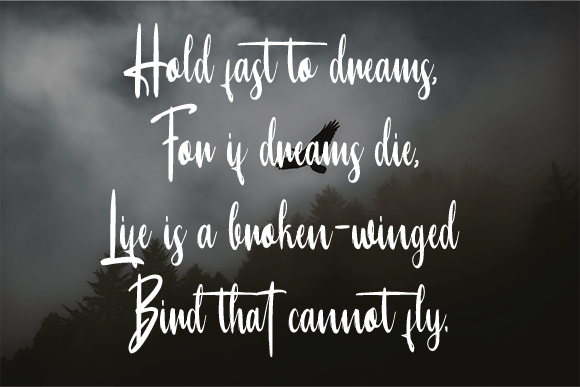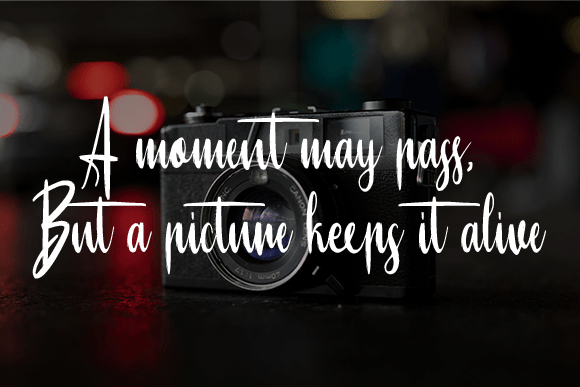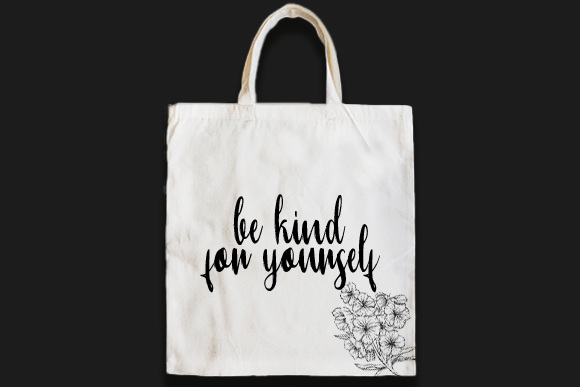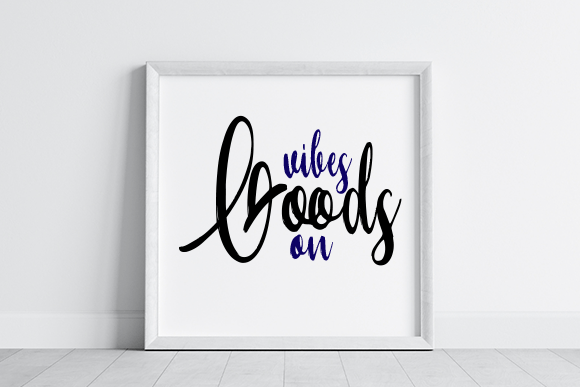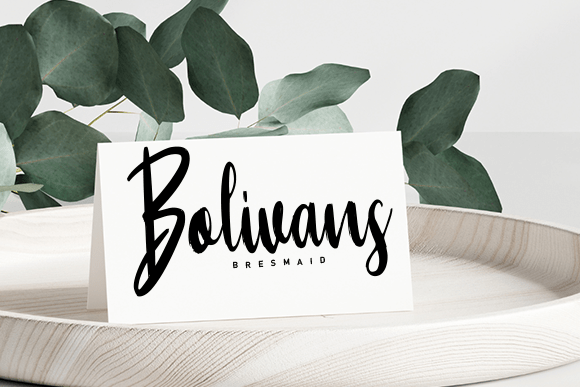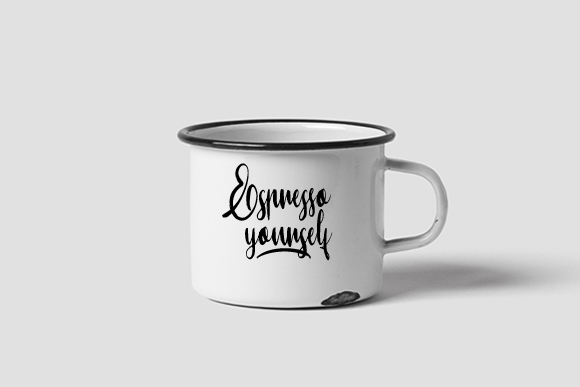
A New Dimension in Design: Unveiling the Bethany Font
Have you ever stared at a blank canvas, waiting for the perfect font to spark your creativity? You know that moment when everything falls into place, and your design takes shape? For designers, this moment is what drives us to keep pushing the boundaries of what’s possible. And that’s exactly what the Bethany Font is designed to do – to help you unlock your full creative potential.
The Bethany Font is a beautiful brush script font that combines style and versatility to create an unforgettable visual experience. Its refined charm makes it perfect for magazine layouts, T-shirt designs, and banners that demand attention. With its intuitive user experience, the Bethany Font is a valuable asset for designers who want to elevate their promotional content with a touch of sophistication.
Bethany Font Key Features
- Unique Characteristics: The font features a unique, hand-drawn design with subtle imperfections, giving it a personal and human touch. The letterforms are carefully crafted to provide excellent readability and legibility.
Bethany Font Review
Overall, I think Bethany Font is a nice addition to any designer’s toolkit. Here are some things that stand out to me:
- ✨ Unique and elegant design: Bethany Font has a distinctive feel to it, with beautiful curves and a classic look.
- ✨ Excellent legibility: The font is easy to read, even at smaller sizes, making it perfect for body text or smaller headings.
- ✨ Good for formal and informal designs: Bethany Font works well for both formal and informal designs, from wedding invitations to blog posts.
However, there are some limitations to keep in mind:
- ⚠️ Limited character set: Bethany Font only comes with a limited set of characters, which might make it harder to use for languages that require a lot of special characters.
- ⚠️ Not ideal for bold or italic text: While the font looks great in regular weight, the bold and italic versions can look a bit awkward.
Overall, I think Bethany Font is a solid choice for designers who want a unique and elegant font. While it may not be perfect, it’s definitely worth considering for your next project.
Tips for Getting the Most Out of the Bethany Font
For the best results, use the Bethany Font in conjunction with a clean and simple design aesthetic. The font is best suited for headings and titles, as its elegant and sophisticated style can add a touch of sophistication to your design.
The Bethany Font is commonly used in a variety of design applications, including wedding invitations, business cards, and marketing materials. Its elegant and sophisticated style makes it an excellent choice for any design project that requires a touch of sophistication and class.